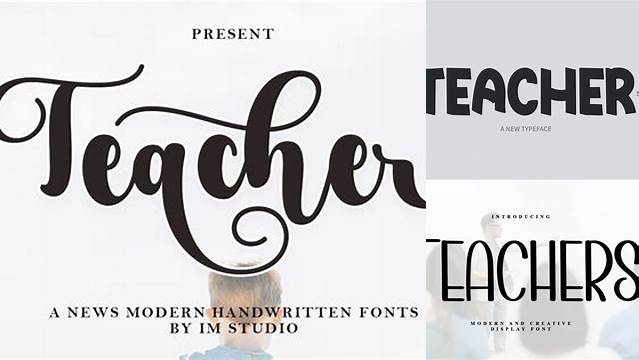
Teacher Fonts Generator: Enhance Your Classroom Typography
Introduction: The Importance of Fonts in Education
Hey guys! Let's dive into the world of teacher fonts. Fonts, those unsung heroes of the written word, play a crucial role in education. They're not just about making text look pretty; they're about readability, engagement, and creating the right atmosphere for learning. Think about it: a cluttered, hard-to-read font can turn off even the most enthusiastic student, while a clear, friendly typeface can make learning materials inviting and accessible. Choosing the right fonts for your classroom resources, presentations, and handouts can significantly impact how well your students receive and retain information. The power of a well-chosen font extends beyond mere aesthetics; it enhances the entire learning experience. Fonts designed with educational needs in mind can improve reading comprehension, reduce eye strain, and even spark creativity. Whether you're creating worksheets, designing posters, or putting together a presentation, the fonts you choose send a message. They communicate professionalism, clarity, and care. As educators, we strive to create an inclusive and supportive learning environment, and the fonts we use are a part of that effort. So, let's explore the world of teacher fonts together and discover how to use typography to its fullest potential in our classrooms.
What is a Teacher Font?
So, what exactly is a teacher font? It's more than just a font that teachers like! Teacher fonts are specifically designed with the needs of educators and students in mind. These fonts prioritize readability, clarity, and engagement, ensuring that learning materials are accessible to all students. Unlike fancy or highly stylized fonts, teacher fonts focus on simplicity and legibility. Think of fonts that mimic handwriting or have clear, distinct letterforms. These are the kinds of fonts that make reading easier and more enjoyable, especially for younger learners or students with learning differences. A good teacher font minimizes distractions and maximizes comprehension. Teacher fonts come in various styles, from print-friendly options for worksheets to bold, attention-grabbing fonts for posters and presentations. The key is to choose fonts that support your teaching goals and create a positive learning environment. For example, a primary school teacher might opt for a simple, sans-serif font that closely resembles handwriting to help students make the connection between written and spoken language. A high school teacher, on the other hand, might use a more formal serif font for research papers while still incorporating engaging fonts for presentations and visual aids. The versatility of teacher fonts is one of their greatest assets. You can use them across a wide range of educational materials, from classroom décor to digital resources. By carefully selecting your fonts, you can create a cohesive and visually appealing learning experience that supports student success. Remember, the goal is to make learning as easy and enjoyable as possible, and the right font can be a powerful tool in achieving that.
Key Characteristics of Effective Teacher Fonts
Alright, let's break down the key characteristics of effective teacher fonts. What makes a font a good choice for the classroom? First and foremost, readability is king. The font should be easy to read at a glance, even from a distance. This means clear letterforms, adequate spacing, and a good balance between thick and thin strokes. Think about fonts that are designed to minimize eye strain and make reading a comfortable experience. Secondly, clarity is crucial. Letters should be easily distinguishable from one another, especially those that are commonly confused, like lowercase 'a' and 'g', or 'i' and 'l'. This is particularly important for early readers and students with dyslexia or other learning differences. A font that prioritizes clarity can significantly improve reading comprehension and reduce frustration. Thirdly, engagement is key. While readability and clarity are paramount, you also want fonts that are visually appealing and engaging. This doesn't mean choosing overly decorative fonts, but rather fonts that have a friendly, approachable feel. A well-chosen font can capture students' attention and make learning materials more inviting. Think about using different fonts for headings and body text to create visual interest. For example, a bold, slightly playful font for headings can draw students in, while a clean, simple font for body text ensures readability. Finally, consider versatility. A good teacher font should be adaptable to a variety of uses, from worksheets and handouts to presentations and digital resources. Look for font families that include different weights and styles, such as bold, italic, and condensed, to give you more flexibility in your designs. By keeping these key characteristics in mind, you can choose fonts that effectively support your teaching goals and create a positive learning environment for your students.
How a Teacher Font Generator Can Help
Now, let's talk about how a teacher font generator can be your new best friend! Choosing the right fonts can be time-consuming, especially with so many options out there. A teacher font generator simplifies this process by helping you discover and customize fonts that are perfect for your classroom needs. These generators typically offer a variety of features, such as filtering fonts by style, readability, and suitability for different grade levels. Some even allow you to preview how your text will look in different fonts, making it easier to make the right choice. One of the biggest advantages of using a teacher font generator is the ability to save time. Instead of spending hours scrolling through endless font lists, you can quickly narrow down your options based on your specific criteria. This frees up valuable time for lesson planning, grading, and all the other things that make teaching such a demanding but rewarding profession. Another benefit is the opportunity to discover new and unique fonts that you might not have encountered otherwise. Teacher font generators often include a wide range of fonts, including those specifically designed for educational purposes. This can help you find fonts that are not only readable and clear but also visually appealing and engaging for your students. Many teacher font generators also offer customization options. You might be able to adjust the font size, spacing, and color, allowing you to create a truly personalized look for your learning materials. This can be especially helpful for creating visually consistent resources across your classroom. Whether you're designing worksheets, presentations, or classroom décor, a teacher font generator can be an invaluable tool. It streamlines the font selection process, helps you discover new options, and empowers you to create visually appealing and effective learning materials. So, if you're looking to enhance your classroom resources, give a teacher font generator a try – you might be surprised at how much it can help!
Top Teacher Fonts to Consider
Okay, guys, let's get down to the nitty-gritty: top teacher fonts to consider. There's a whole universe of fonts out there, but some are particularly well-suited for educational use. Let's explore some of the heavy hitters in the teacher font world. First up, we have the classic Comic Sans MS. Now, I know what you're thinking – Comic Sans has a bit of a reputation. But hear me out! While it's often overused, it's undeniably readable and friendly, especially for younger students. Its rounded letterforms and casual style can make learning materials less intimidating. Just use it judiciously! Next, we have Century Gothic. This sans-serif font is known for its clean lines and excellent legibility. It's a great choice for body text and headings alike, making it a versatile option for all kinds of classroom materials. Century Gothic projects a sense of professionalism while remaining approachable and easy to read. Another fantastic option is Open Sans. This font was specifically designed for readability on screens, making it ideal for digital resources, presentations, and online learning platforms. Its open letterforms and neutral style make it a great all-around choice for teachers. If you're looking for a font that mimics handwriting, KG Primary Penmanship is a winner. This font closely resembles the handwriting style taught in many elementary schools, making it a perfect choice for worksheets and handwriting practice. It helps students make the connection between written and spoken language. For a more formal feel, consider Georgia. This serif font is highly readable and projects a sense of authority and professionalism. It's a great choice for research papers, formal documents, and materials for older students. And let's not forget Arial. This ubiquitous sans-serif font is a workhorse in the font world. It's clean, clear, and highly readable, making it a reliable choice for any classroom setting. Arial is a safe bet for any teacher looking for a font that's both functional and easy on the eyes. Remember, the best font for your classroom will depend on your specific needs and preferences. Experiment with different fonts and see what works best for you and your students. A teacher font generator can be a great resource for exploring different options and finding the perfect fit.
Integrating Fonts into Your Teaching Materials
So, you've got your arsenal of awesome teacher fonts – now what? Let's talk about integrating fonts into your teaching materials effectively. It's not just about choosing a pretty font; it's about using typography strategically to enhance learning. One key principle is consistency. Choose a few fonts that you love and stick with them across your classroom materials. This creates a cohesive visual identity that helps students recognize your resources and feel comfortable with the learning environment. For example, you might choose one font for headings, another for body text, and a third for emphasis or special elements. Consistency in font choice also makes your materials look more professional and polished. Another important consideration is hierarchy. Use different font sizes and weights to create a visual hierarchy that guides students through the information. Headings should be larger and bolder than subheadings, which should be larger and bolder than body text. This helps students quickly grasp the main ideas and understand the structure of the content. Don't be afraid to use emphasis strategically. Bold, italic, and underlined text can all be used to highlight key words and concepts. However, it's important to use these sparingly, as too much emphasis can be overwhelming and detract from the message. Think of emphasis as a seasoning – a little can go a long way! Color can also play a role in font integration. Using different colors for headings, subheadings, and body text can add visual interest and help students organize information. However, it's crucial to choose colors that are easy on the eyes and provide sufficient contrast with the background. Avoid using bright, neon colors for large blocks of text, as these can be tiring to read. Finally, remember to test your fonts before distributing your materials. Print out a sample page or view your presentation on a projector to make sure the fonts are readable from a distance. It's also a good idea to get feedback from your students – they're the ultimate judges of whether your fonts are effective! By integrating fonts thoughtfully into your teaching materials, you can create a visually appealing and effective learning environment that supports student success.
Conclusion: The Power of Typography in Education
Alright, we've reached the end of our font-tastic journey! Let's wrap up by reiterating the power of typography in education. As we've seen, fonts are more than just pretty faces; they're powerful tools that can shape the learning experience. Choosing the right teacher fonts can enhance readability, improve engagement, and create a positive classroom atmosphere. By prioritizing clarity, consistency, and visual hierarchy, we can use typography to make learning materials more accessible and effective for all students. A teacher font generator can be a game-changer, helping us discover and customize fonts that perfectly suit our needs. From classic choices like Arial and Georgia to friendly options like Comic Sans MS and KG Primary Penmanship, there's a font out there for every teaching style and subject matter. But remember, the key is to use fonts strategically. Think about how fonts can support your teaching goals and create a visually appealing learning environment. Experiment with different fonts, get feedback from your students, and don't be afraid to try something new. In the end, the power of typography in education lies in its ability to communicate effectively. By choosing fonts that are clear, readable, and engaging, we can empower our students to learn and grow. So, go forth and font-ify your classroom! Let's harness the power of typography to create a learning environment that is both visually appealing and intellectually stimulating. Thanks for joining me on this font adventure – happy teaching, everyone!